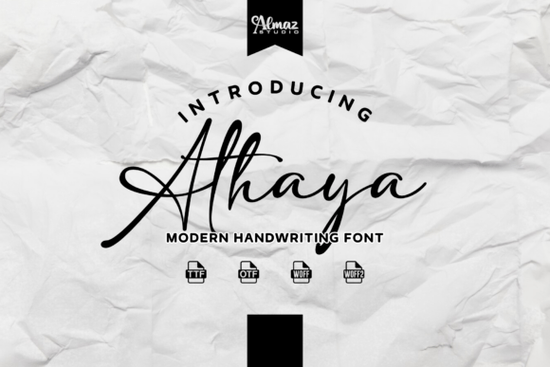
Choosing the right script font can make or break a design. If you've been searching for a typeface that feels personal, elegant, and versatile, the Athaya Font is worth a close look. It's a script and handwriting font that blends fluid cursive strokes with a natural, hand-lettered feel making it a strong pick for invitations, logos, branding, packaging, and all kinds of creative projects.
What Makes the Athaya Font Different From Other Script Fonts?
There are thousands of script fonts available, so what sets Athaya apart? The answer lies in its balance. Some calligraphy fonts lean too formal and feel stiff. Others go so casual that they lose readability. Athaya sits in a sweet spot it has the graceful flow of traditional cursive with enough personality to feel modern and approachable.
The letterforms feature natural stroke weight variations, smooth connections, and subtle flourishes that give the font an authentic, hand-drawn quality. It doesn't look like it was generated by a machine. It looks like someone sat down with a pen and wrote something beautiful.
Who Is This Font Best Suited For?
Athaya works well across a range of creative roles:
- Wedding and event designers perfect for save-the-dates, invitations, and table cards
- Print-on-demand sellers adds a handmade feel to t-shirts, mugs, and tote bags
- Small business owners great for logos, product packaging, and social media graphics
- Crafters and hobbyists ideal for Cricut projects, stickers, and scrapbooking
- Bloggers and content creators works beautifully for quotes, headers, and Pinterest pins
If your design needs warmth and a human touch, this font delivers exactly that.
What Types of Projects Does Athaya Work Best For?
Athaya is especially effective for projects where emotion and personality matter. Think about designs where you want the viewer to feel something elegance, joy, intimacy, or creativity. Here are some specific use cases:
- Wedding stationery the flowing letterforms feel romantic without being overly ornate
- Brand identities gives boutique brands and handmade shops a refined, artisan look
- Social media content eye-catching script fonts stand out in crowded feeds
- Gift products personalized items like custom mugs or framed prints look more premium with a quality script font
- Digital planners and journals adds an elegant touch to digital downloads
How Does Athaya Compare to Other Popular Script Fonts?
If you've browsed Creative Fabrica's script font collection, you may have come across options like Amsterdam, which offers a European-inspired cursive style, or Arkina Duo, which pairs a script with a complementary serif. Each of these has its own strengths.
Athaya leans more toward a modern handwriting aesthetic while still keeping elegance intact. If you want something more playful, fonts like Rainbow Candy or Happy Saturday might be a better fit. For something with a more relaxed, everyday journal feel, Norelia Daily is another option worth exploring.
The key is matching the font's personality to your project's tone. Athaya works best when you want sophistication without stuffiness.
Does Athaya Include Alternates and Ligatures?
Many premium script fonts come with alternate characters, swashes, and ligatures that let you customize the look of your text. These extras are especially useful for logos and display text where you want each letter combination to feel intentional and polished. When working with any script font, always check what alternates are available they can make a big difference in the final result.
Tips for Getting the Most Out of Script Fonts
Here are a few practical things to keep in mind when working with fonts like Athaya:
- Use proper letter spacing script fonts often need tighter tracking than serif or sans-serif fonts
- Don't use all caps script fonts are designed for mixed case; all caps usually breaks the flow
- Pair with a simple sans-serif let the script be the star and use a clean secondary font for body text
- Check readability at small sizes test your design at the actual size it will be printed or displayed
- Use OpenType features if your software supports it, enable stylistic alternates for a more custom look